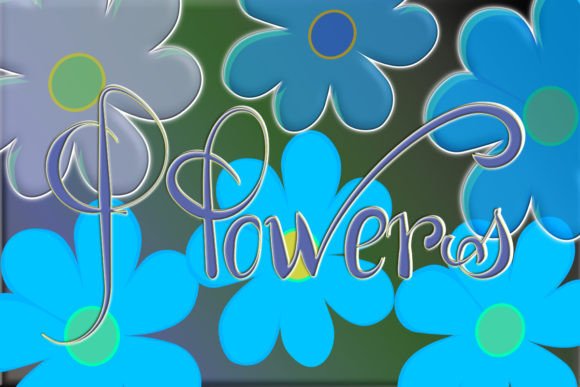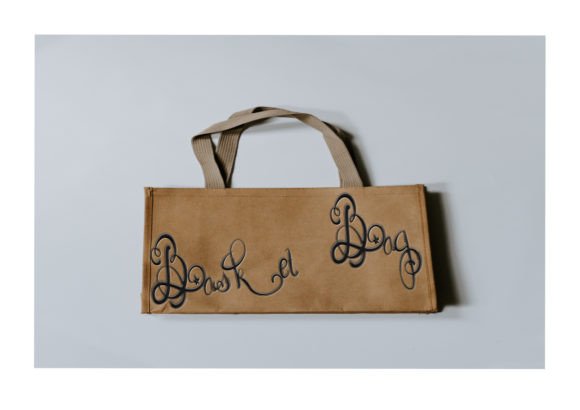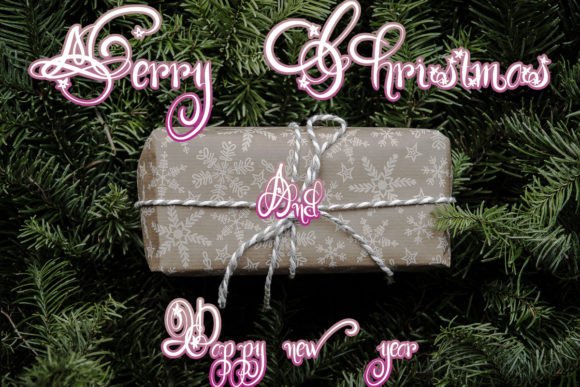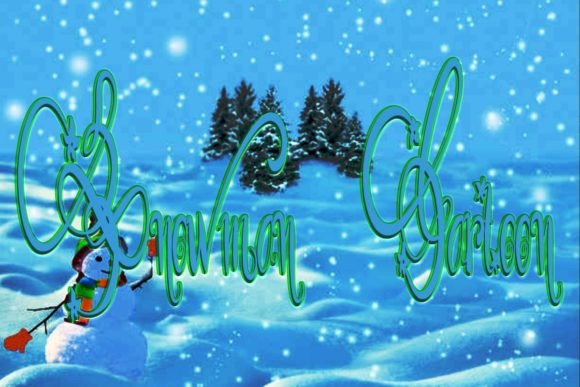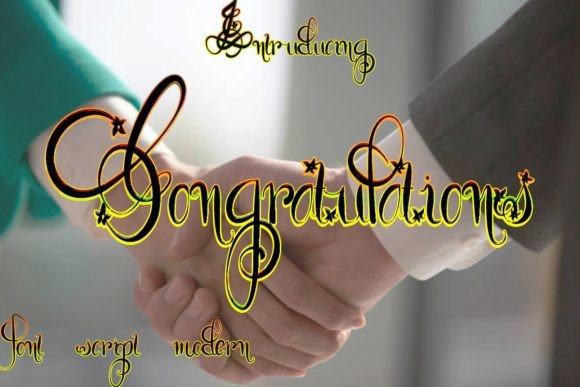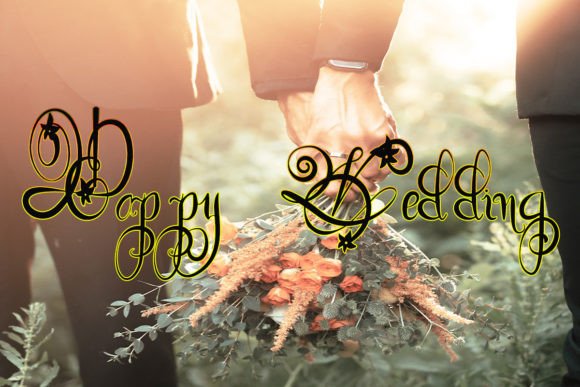
Snowman Cartoon Font
About Snowman Cartoon Font
Snowman Cartoon Font is a swirly and delightful handwritten font that adds a touch of fun to any design. Its charming curves and lighthearted form make it ideal for playful and informal creative projects. Whether you’re designing something festive or simply want to bring a sense of cheer to your work, this font is a perfect choice.
With its flowing lines and smooth shapes, Snowman Cartoon Font captures a sense of joy that’s hard to ignore. It’s especially great for projects where you want the text to stand out with a friendly and whimsical look.
Where to Use Snowman Cartoon Font
You’ll love the versatility of Snowman Cartoon Font. Here are some popular ways to use it:
• Holiday Designs – Great for Christmas cards, tags, or winter-themed posters.
• Children’s Projects – Perfect for kids’ crafts, storybooks, or educational materials.
• Invitations & Greeting Cards – Add a cute touch to birthdays or baby showers.
• Branding – Ideal for fun products, packaging, or boutique-style logos.
• Social Media Graphics – Use it for engaging posts that feel warm and friendly.
Its playful swirls give your message a unique personality, making every word feel full of life.
Why Choose Snowman Cartoon Font?
When your project needs to feel light and joyful, Snowman CartoonFont delivers. It comes with a full set of upper and lowercase letters, numbers, and punctuation. This makes it reliable for any layout, whether you’re designing a small label or a large poster.